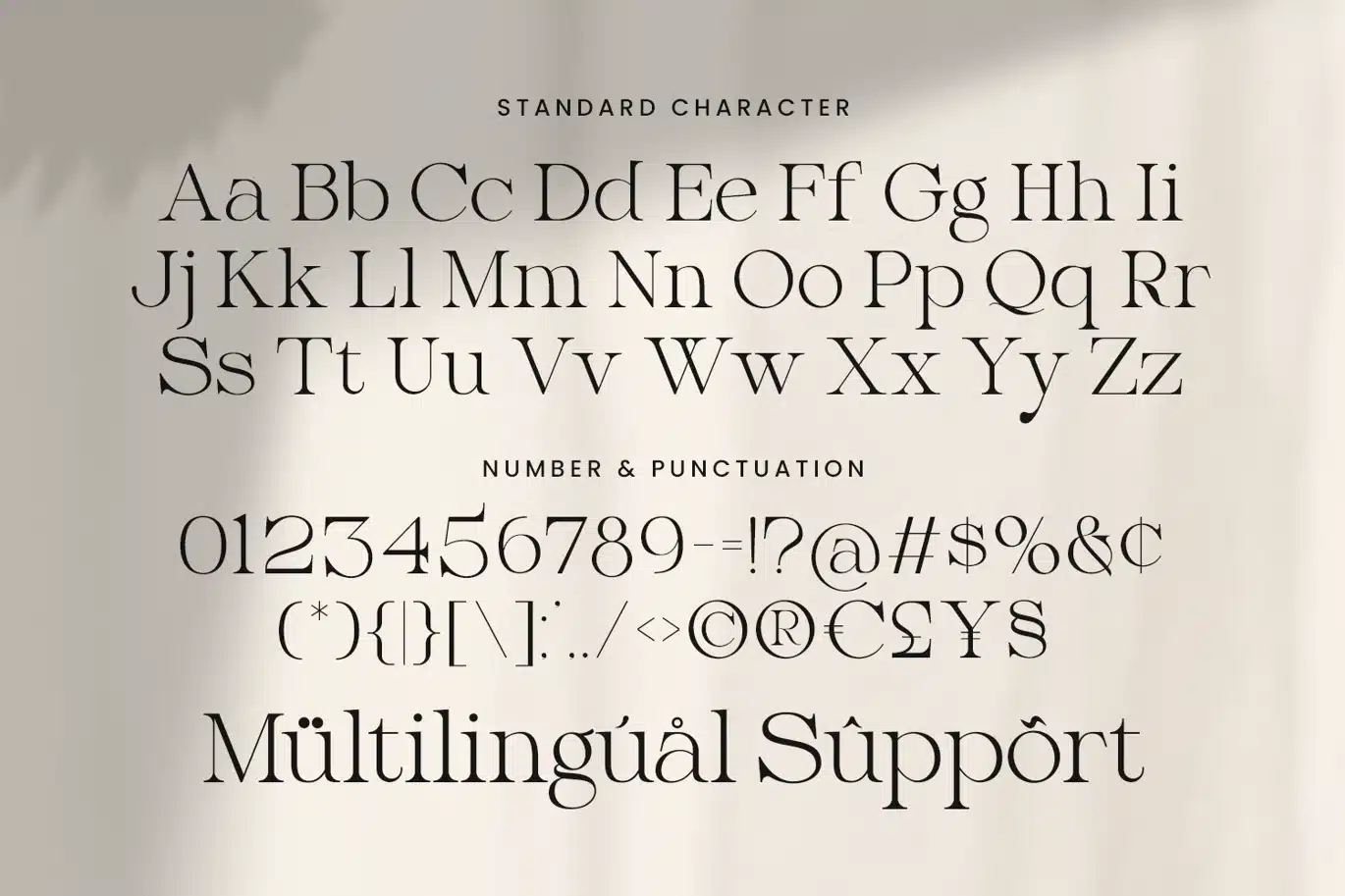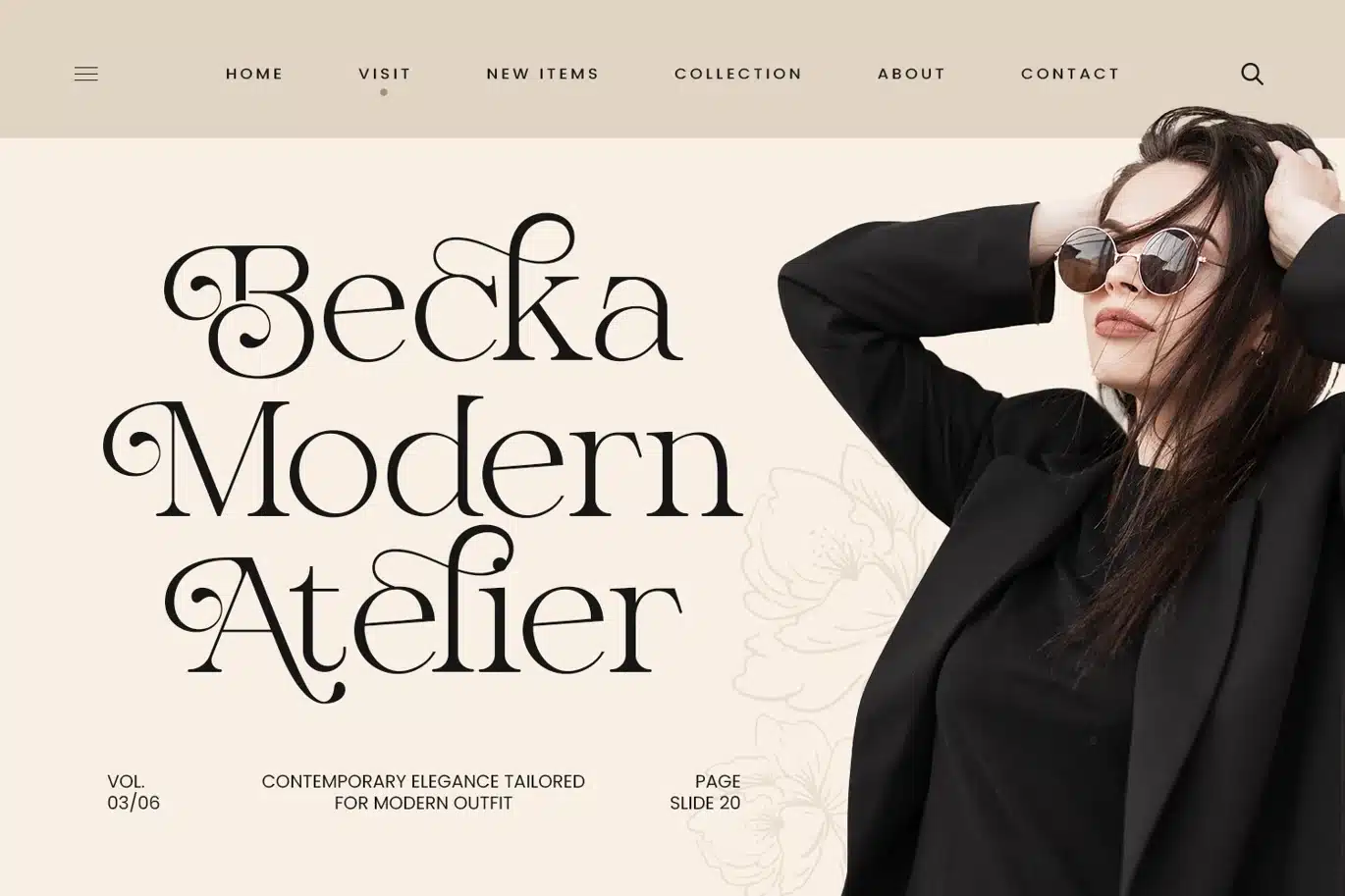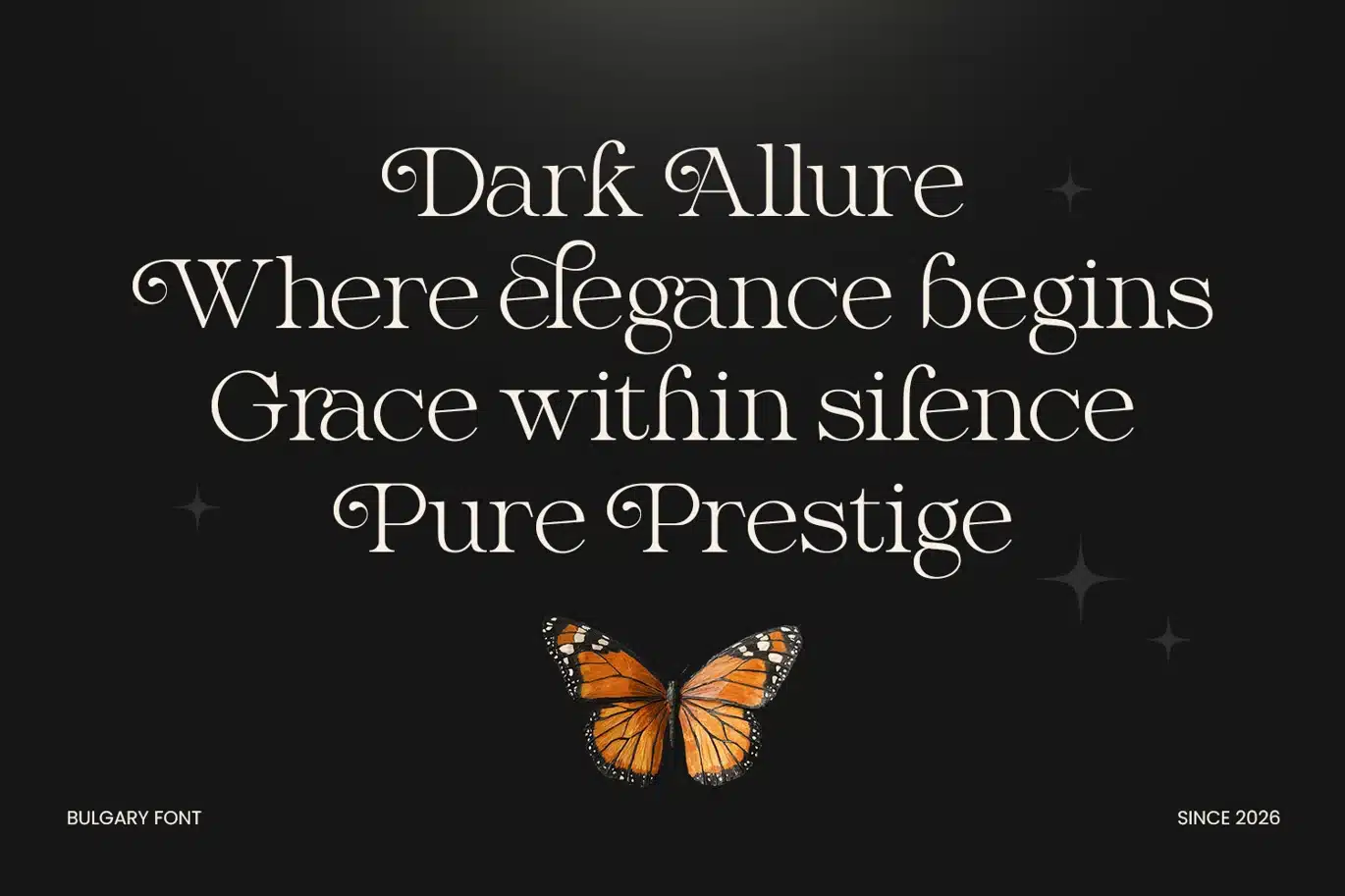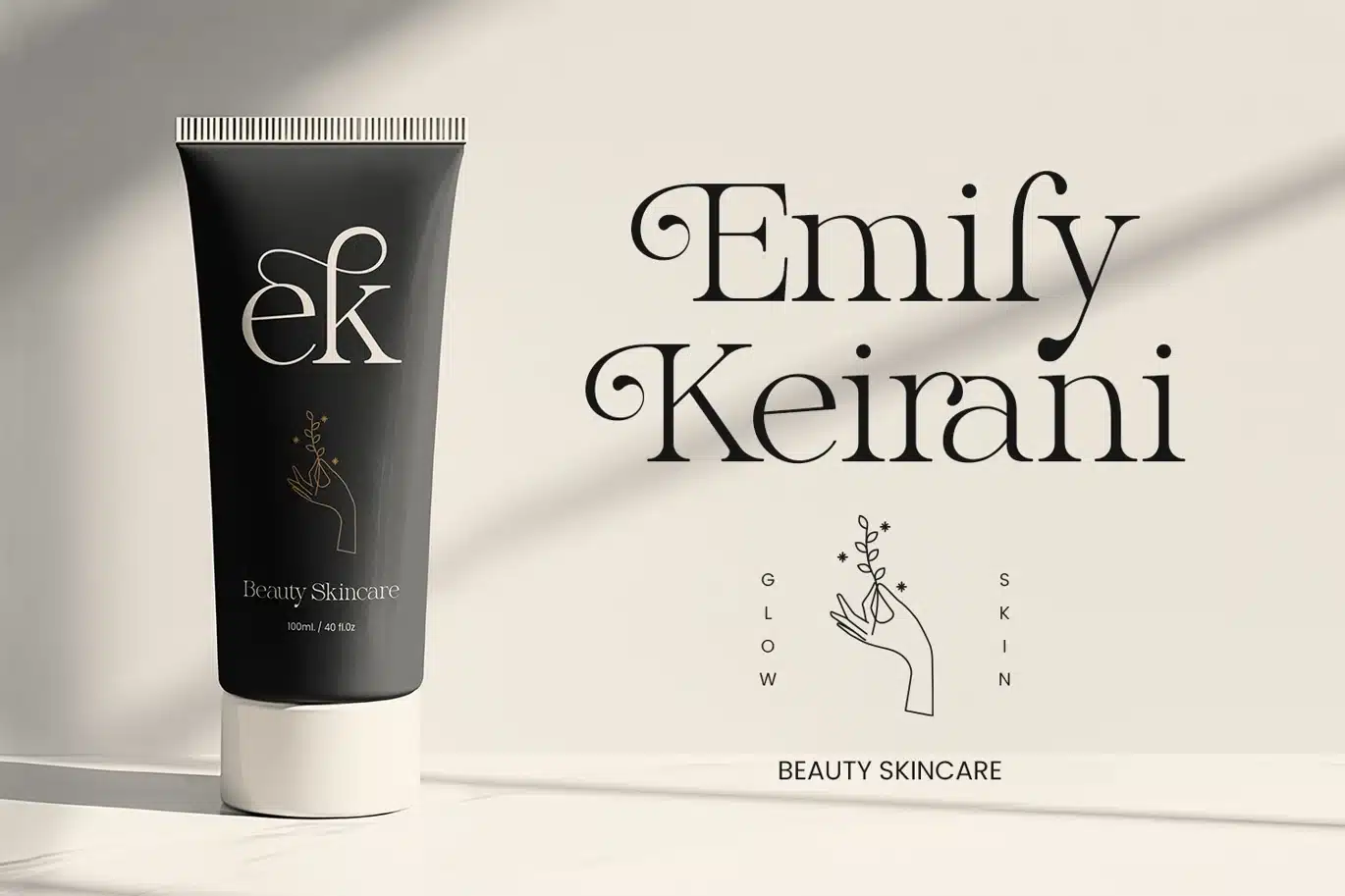
Logo Font – Bulgary
Introducing Bulgary: An Elegant Serif Logo Font with Swashes and Ligatures
Meet Bulgary, a stylish serif logo font designed to bring elegance, sophistication, and artistic flair to modern typography. Crafted with refined serif structures and graceful swash details, Bulgary delivers a luxurious typographic style that instantly elevates branding and logo design. Its distinctive letterforms create a beautiful balance between classic elegance and contemporary creativity, making it a perfect choice for premium visual identities.
Bulgary blends timeless serif elegance with expressive swashes, giving every character a unique and decorative personality. The flowing strokes and stylish curves create a harmonious visual rhythm, allowing the font to stand out beautifully in logo compositions and display typography. This refined design ensures that every word looks polished, elegant, and memorable.
Designed with flexibility in mind, Bulgary includes a rich set of stylish ligatures and alternate characters that allow designers to create unique lettering combinations. These OpenType features help produce smooth connections between letters and provide multiple variations for each character. The result is a font that offers creative freedom, enabling designers to craft distinctive logos and elegant typography with ease.
Bulgary works beautifully across a wide range of branding and creative design projects. It is ideal for logo design, fashion branding, beauty products, boutique brands, editorial headlines, wedding invitations, and luxury packaging. Its elegant swashes and decorative details help transform simple typography into stylish lettering that captures attention and communicates sophistication.
Whether you are designing a luxury brand identity, creating elegant packaging, or crafting beautiful invitations, Bulgary provides a refined typographic solution. Its combination of classic serif structure, expressive swashes, and creative ligatures allows designers to produce visually stunning compositions with a timeless and premium aesthetic.
Elegant Serif with Swashes
Beautiful serif letterforms enhanced with stylish swashes for a luxurious appearance.
Ligatures & Alternates
Includes unique ligatures and alternate characters for creative typography customization.
Perfect for Logo Design
Designed especially for elegant logos and premium brand identities.
Luxury & Stylish Aesthetic
A refined look suitable for fashion, beauty, and high-end branding.
Extended character set for international design projects.
Logo & Brand Identity
Create distinctive and memorable logos with elegant serif typography.
Fashion & Beauty Branding
Perfect for luxury brands, boutiques, and beauty product packaging.
Wedding & Invitation Design
Ideal for wedding invitations, greeting cards, and elegant stationery.
Editorial & Magazine Headlines
Enhance magazines and stylish layouts with sophisticated typography.
Luxury Packaging
Great for perfume labels, skincare packaging, and premium product branding.